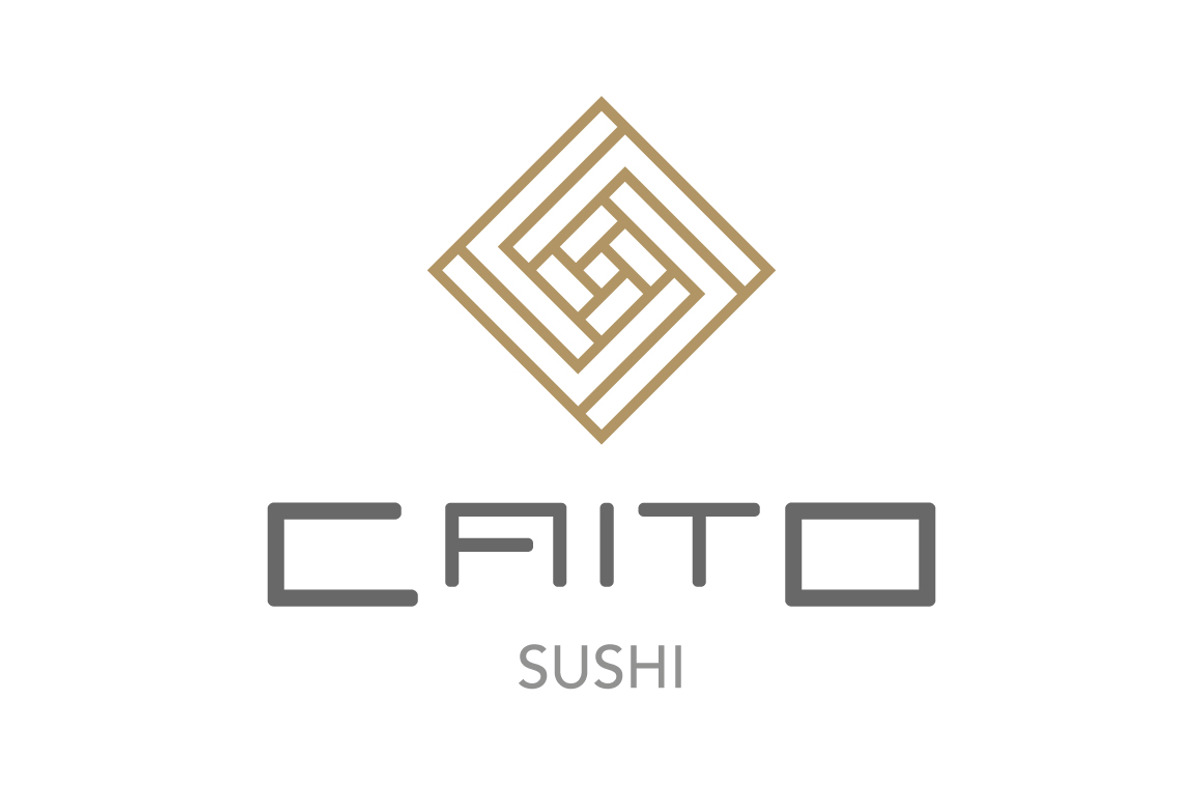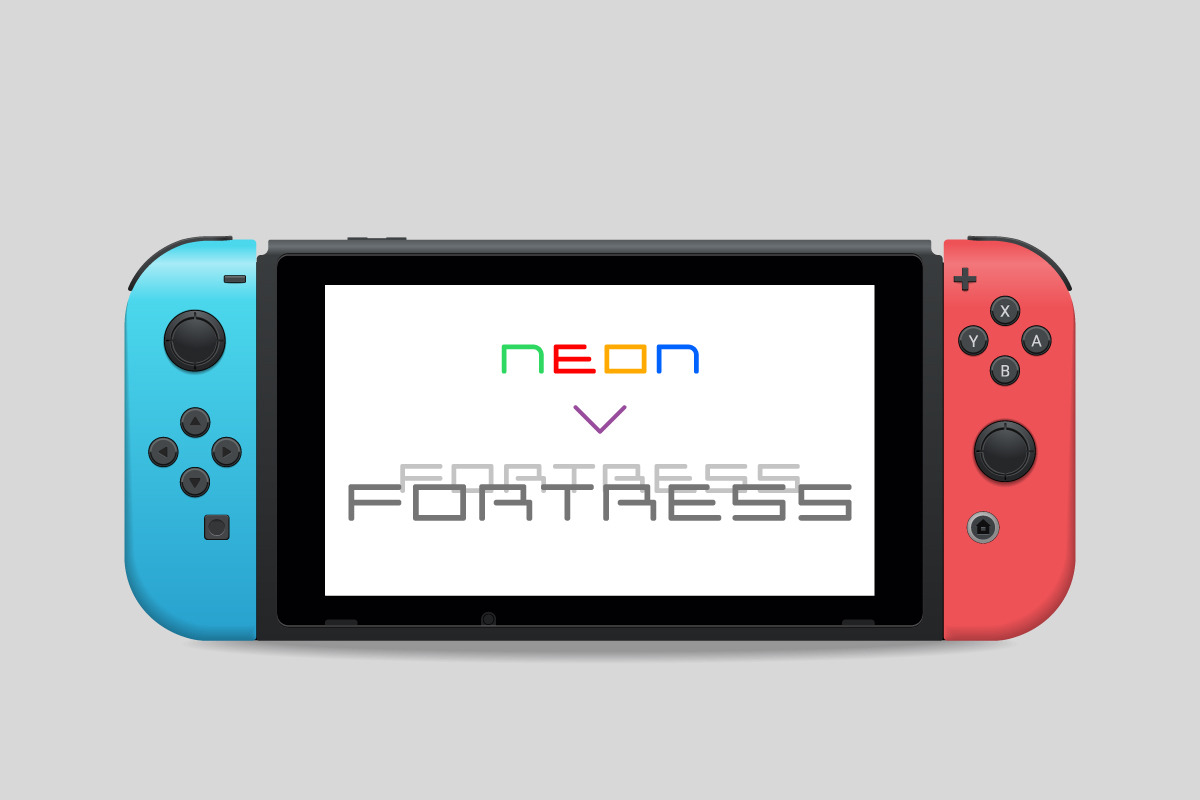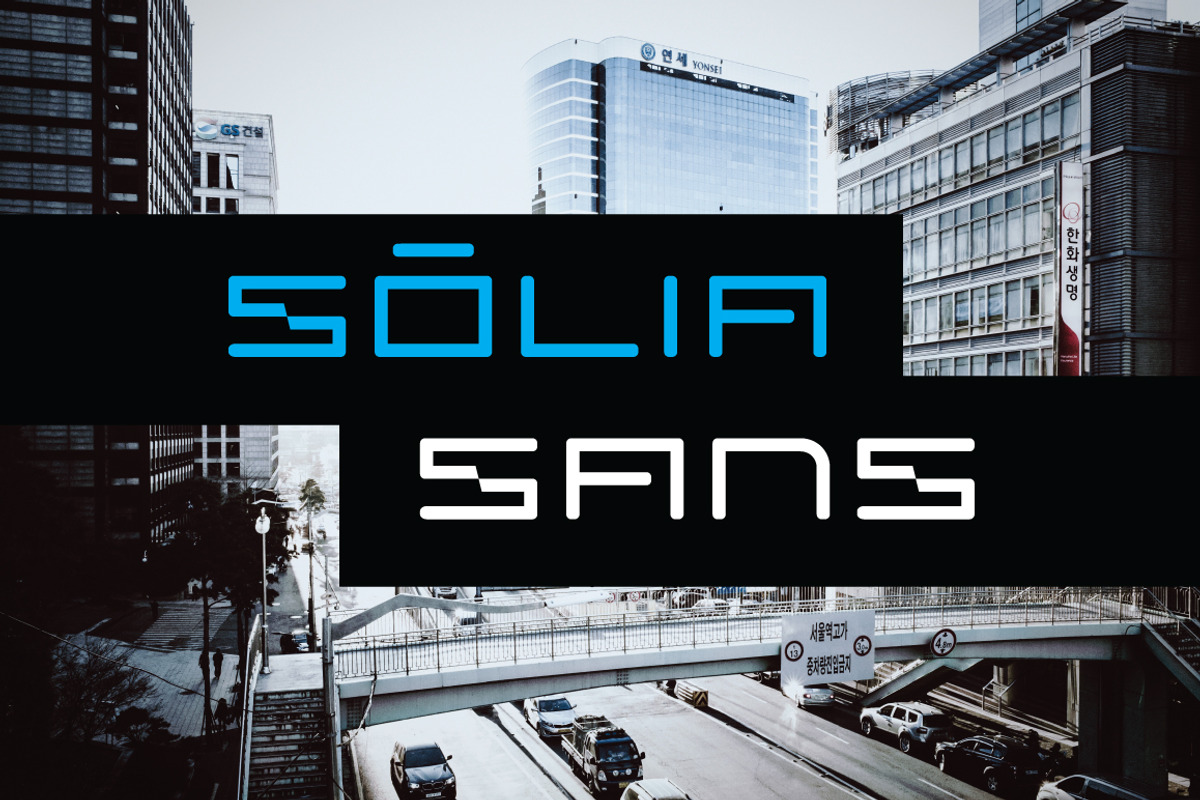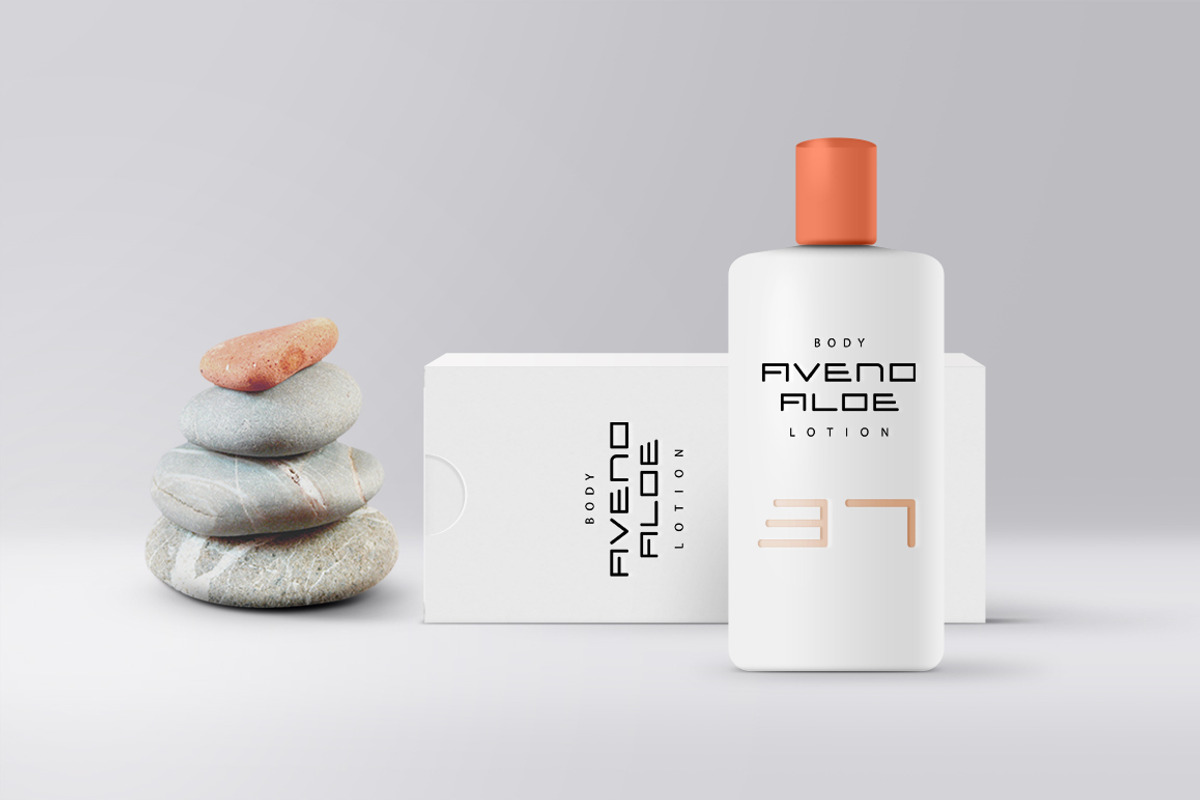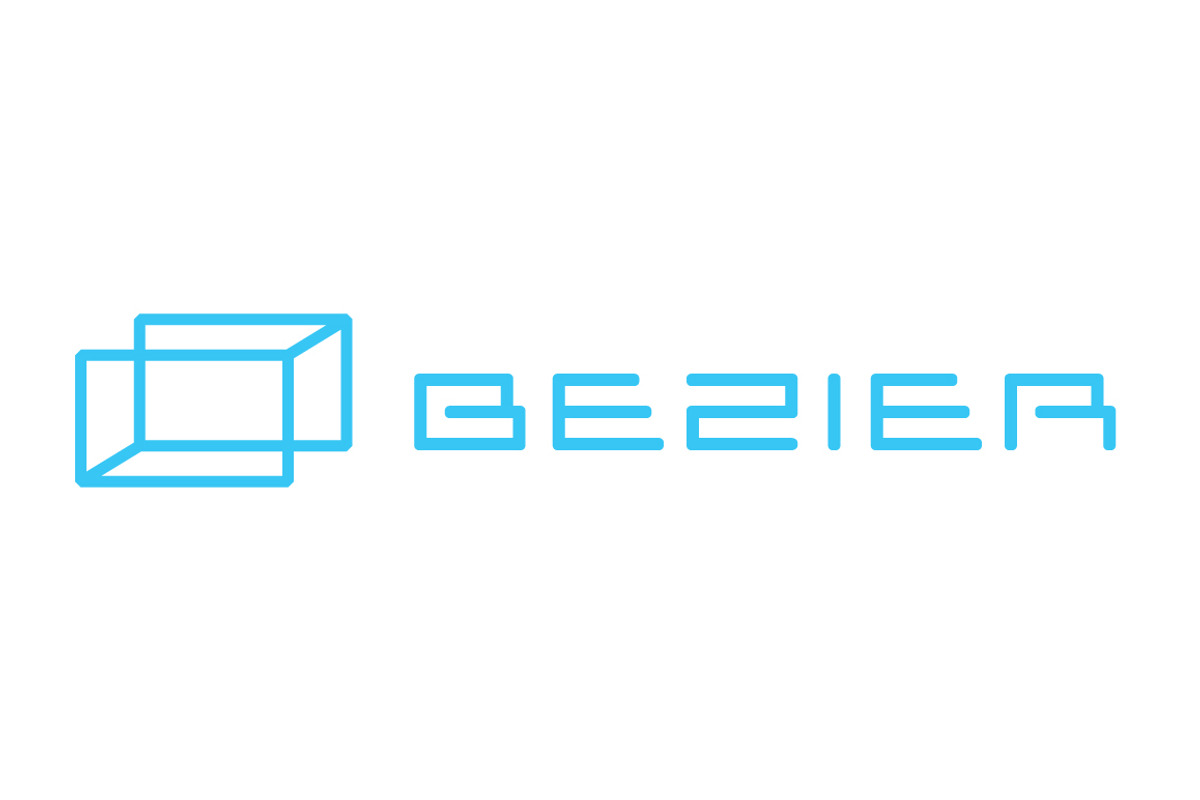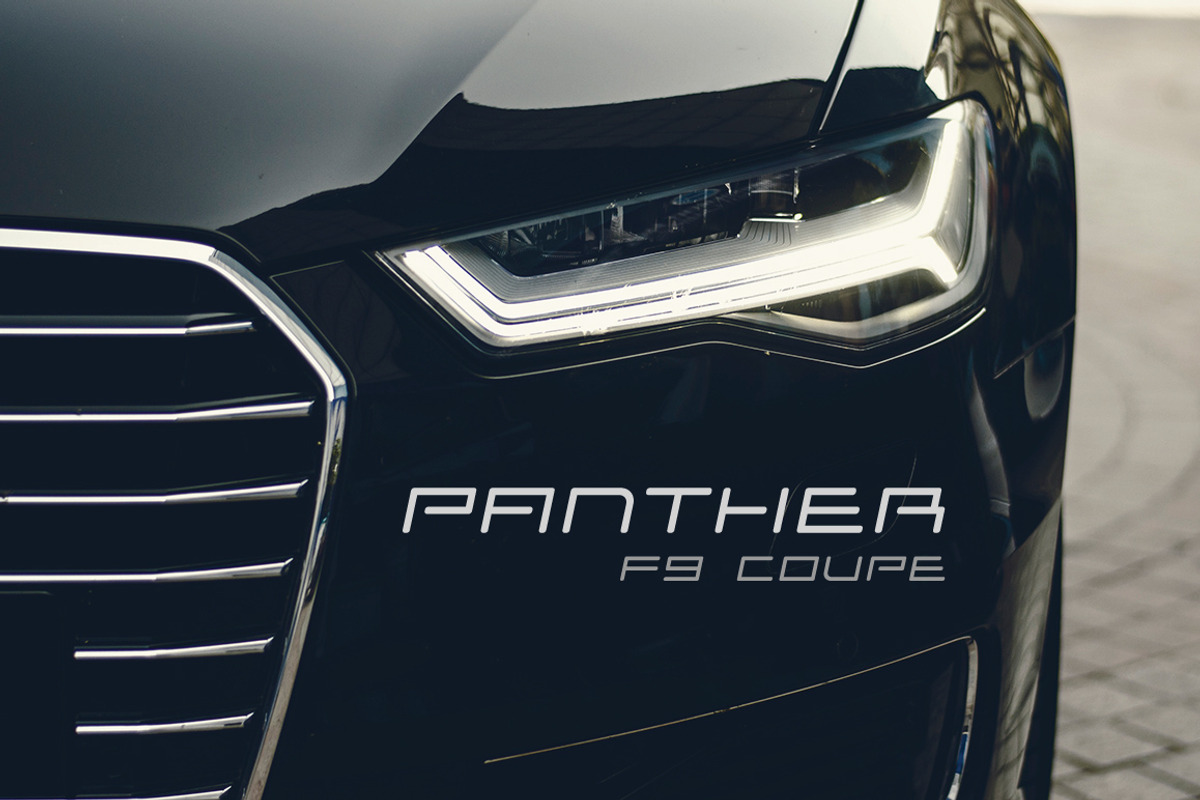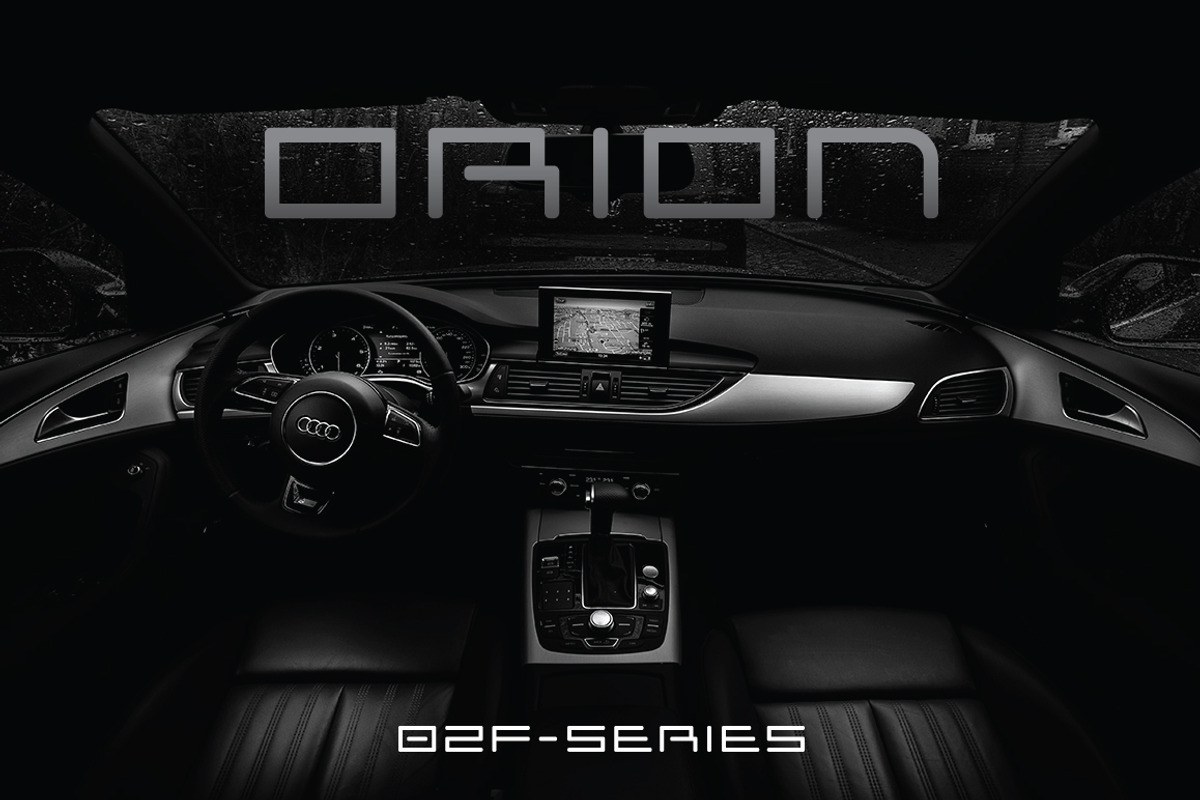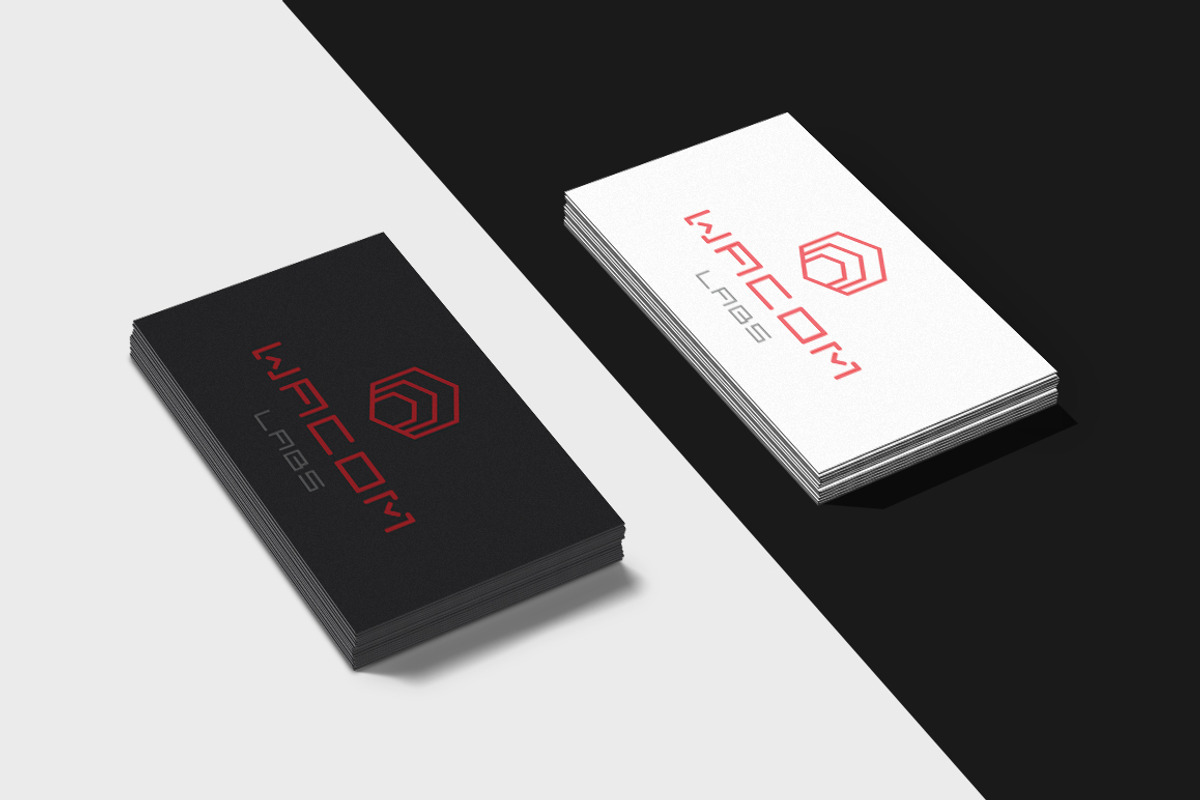
Solia Sans Display Font
Introducing Solia Sans - a sleek and sexy sans-serif display font inspired by a recent stay in the beautiful city of Seoul and the Korean alphabet (Hangul). It's wide letterforms with low cap heights aim to be futuristic without being sterile, with small accents and alternate glyphs making it unique and alluding to the minimal geometry of Hangul characters. Solia Sans is remarkably versatile and can work beautifully for projects related to cosmetics, technology, luxury high-end buildings, vehicles, restaurants etc., apps and games, conventions and events, and many more. Each mono-line character is precisely crafted and the font family carefully spaced and kerned for a consistent, elegant flow.
Solia Sans Regular, Solia Sans Oblique and Solia Sans Condensed including letters, numbers and special characters pictured above
Alternate styles for specific characters